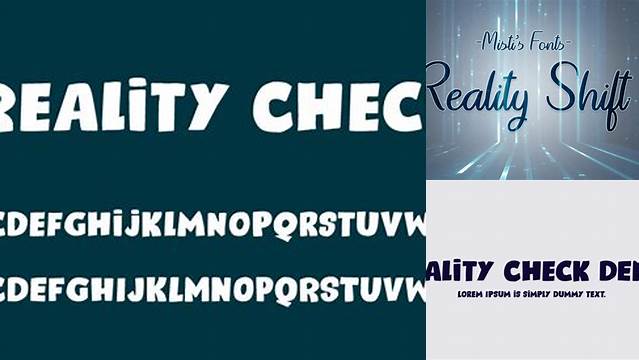
Reality Check: Free Fonts You Need!
Hey everyone! Let's dive into the exciting world of fonts, specifically focusing on free fonts. In today's digital landscape, where visual communication reigns supreme, the right font can make or break your message. Whether you're a seasoned designer, a budding entrepreneur, or just someone who loves to jazz up their social media posts, knowing where to find amazing free fonts is a game-changer. This article is your reality check; we'll explore the best sources for free fonts, tips on how to choose the perfect one, and how to avoid common pitfalls. Get ready to level up your design game without spending a dime! Let's get started, shall we?
Choosing the Right Free Fonts
Choosing the right free fonts is a pivotal step in any design project. It’s not just about picking a font that looks pretty; it’s about finding one that complements your overall message and resonates with your target audience. Think of fonts as the voice of your design. Is it bold and assertive, playful and whimsical, or elegant and sophisticated? The font you choose will dictate that tone, so it's super important to get it right. First, consider your project's purpose. Are you designing a website, a logo, a poster, or something else? Each medium has different requirements, and what works well for one might not work for another. Website fonts, for example, need to be readable at various sizes and on different devices. Fonts for logos need to be unique, memorable, and versatile. So think first about the project. Researching the font and understanding how its licenses work is another crucial step. Many free fonts come with specific licensing agreements that dictate how they can be used. Some fonts are free for personal use but require a license for commercial projects. Others might have restrictions on redistribution or modification. Always read the licensing details carefully to avoid any legal issues down the line. To dive deeper into selecting fonts for a successful project, consider these tips: examine the context and medium, research the font's characteristics, experiment with font pairings and check out the licensing terms. In the end, carefully selected free fonts will help you create designs that are visually appealing, effective, and legally compliant.
Understanding Font Families and Styles
Understanding font families and styles is a core element of using free fonts effectively. Each font belongs to a family, also known as a typeface, which is a group of related fonts that share a common design. Within a font family, you'll find various styles such as regular, bold, italic, and bold italic. These styles add versatility and help you emphasize specific parts of your text. For instance, a regular style is your go-to for body text, while bold can draw attention to headings or important points. Italic is great for quotes or adding a touch of elegance. Knowing how to combine different styles within a font family is key to creating a visually engaging layout. Consider a website where you use a sans-serif font family for the headings and a serif font family for the body text. This is a great way to improve readability and make your content more accessible. Keep in mind that you should choose fonts that complement each other and don't clash. You can use websites like Google Fonts to find pairings or understand the basics of fonts. By mastering the basics of font families and styles, you will be able to make sure you are using the best fonts for your projects.
Readability and Legibility
Readability and legibility are two essential concepts when working with free fonts. Readability refers to how easily a block of text can be read, while legibility is about how recognizable individual characters are. Both are crucial for ensuring your audience can understand your message without struggling. A well-chosen font that enhances readability is a blessing for your design. When choosing free fonts, pay close attention to the font's characteristics. Avoid fonts that are overly stylized or have complex designs, especially for body text. These can be difficult to read, particularly at smaller sizes. Instead, opt for fonts with clear, distinct letterforms. Consider the x-height (the height of the lowercase 'x') of the font. Fonts with a larger x-height tend to be more readable. Spacing is also an important consideration. Make sure there’s enough space between letters, words, and lines to avoid crowding and improve comprehension. This is especially important for long-form content. Test the font in different sizes and on different backgrounds to see how it performs. What looks good on your computer screen might not translate well to a printed document or a mobile device. When you're working with free fonts, make sure you check the font's design for readability. Following these principles will go a long way in creating designs that are not only visually appealing but also effective in communicating your message.